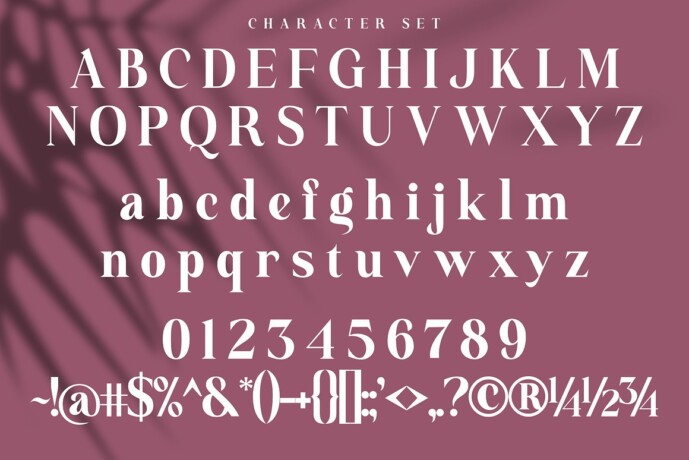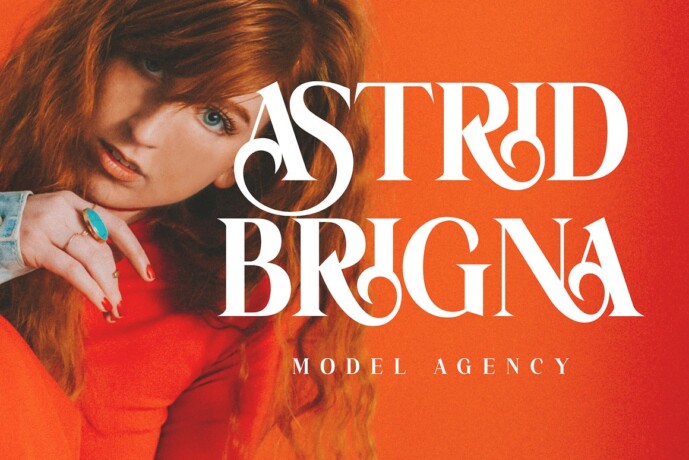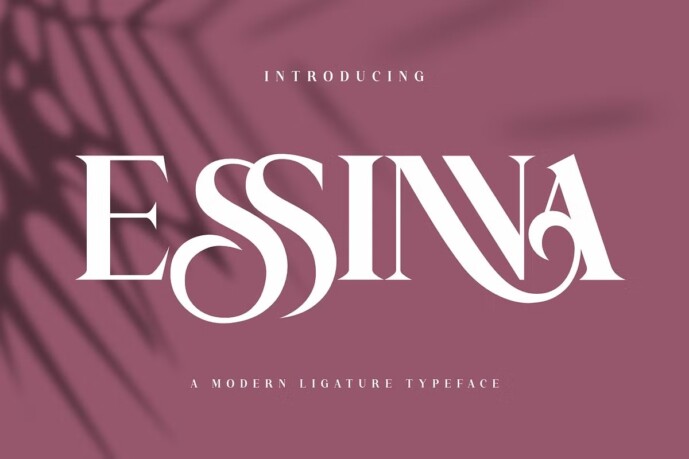
Essinna Font
Designer: Sealoung
Essinna Font is an elegant and classy serif typeface. This font is both modern and nostalgic, making it perfect for logos, magazines, and social media. It is already matched up and ready to be used together for your next design. For those in need of a touch of elegance, style, class, chic, and modernity for their designs, this font was created for you! Essinna Font was built with OpenType features and includes ligatures, numbers, punctuation, and it also supports other languages.